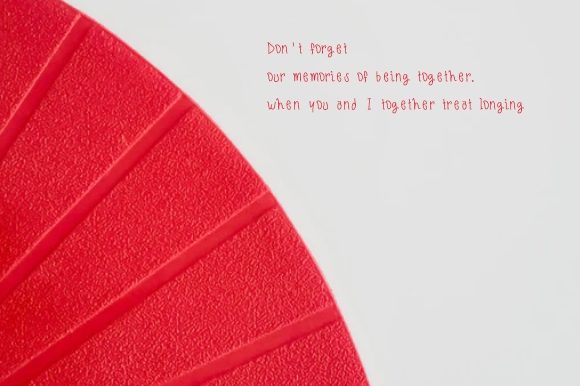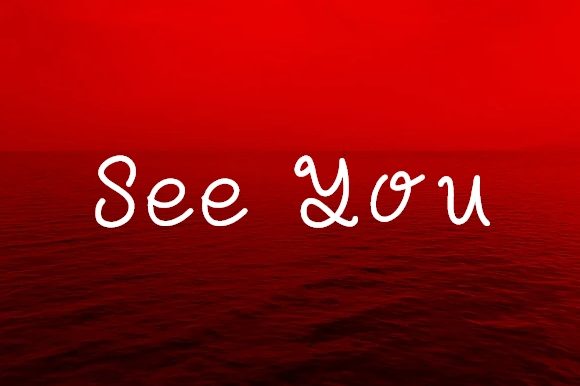
Cadella Font
About Cadella Font
Cadella is a cool and bouncy handwritten font. It maintains its classy calligraphic influences while feeling contemporary and fresh. This versatility will appeal to a wide range of crafty ideas, from letterheads and titles, to stationery.